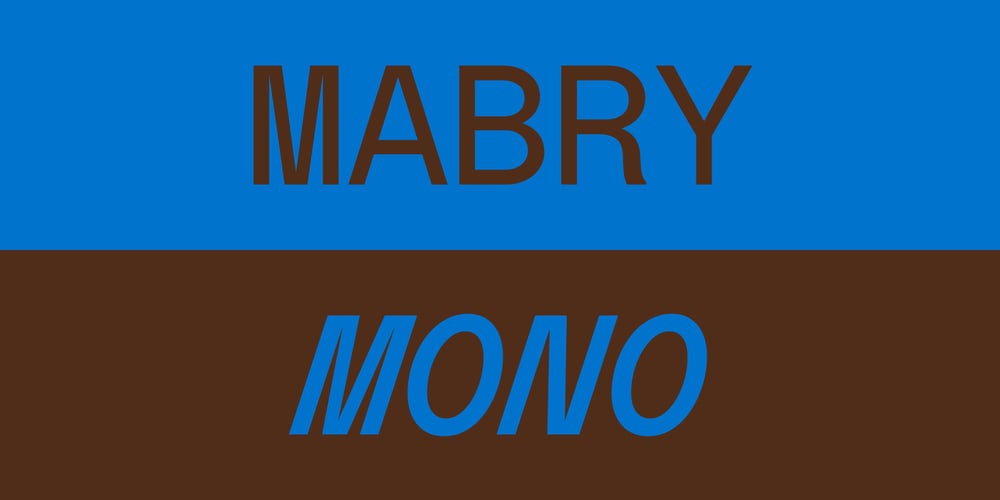
Mabry Mono Font Family was designed by Benjamin Critton, Colophon Foundry and published by Colophon Foundry. Mabry Mono contains 6 styles and family package options. Originally released in 2018 and named after the influential funk singer Betty Davis (b. Betty Mabry, 1945), the versatile neo-grotesque Mabry now has a fixed-width counterpart in its companion, Mabry Mono.With one foot amidst the idiosyncratic forms of the late 19th Century grotesques / grotesks, and the other among the rational maths of early 20th Century geometric sans-serifs, both Mabry and Mabry Mono posit themselves as several things at once: simultaneously contemporary and historic, rigorous and gestural, objective and subjective, cultivated and imprecise, refined and coarse.Originally rendered from the would-be overlaps of precedent-setting grotesque and geometric types, Mabry and its fixed-pitch partner are vernacular studies in duality: the types are candid and forthright, but also a bit mischievous at times. They can prove pleasantly blunt in certain settings but also contain necessary moments of sensitivity and delicacy in their drawings. In their ideal application, Mabry and Mabry Mono manage to reference a vague past, capture a particular version of the present, and posit an amorphous timelessness.